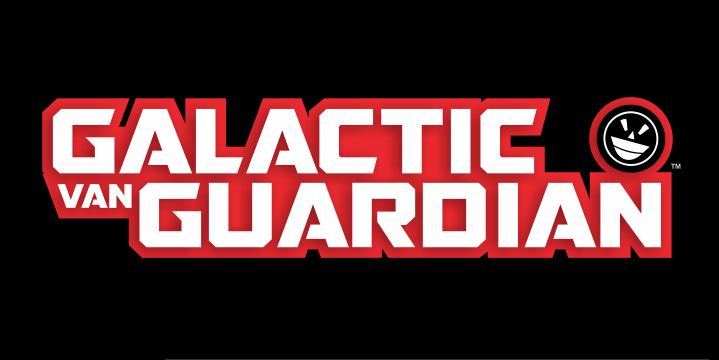
Preview and download Galactic Vanguardian Font. Created by Fontry in Techno Sci-fi styles with Free for personal use license.
CLICK HERE to buy a commercial version of GALACTIC VANGUARDIAN via secure Payhip/PayPal digital download: https://payhip.com/b/p3gL The celluloid has been minted -- digitally of course -- flora and fauna are speaking, even walking. The galaxy is a wide-open space, a collection of mysterious beings and celestial things capable of destroying entire worlds. The guardians are coming to save the day. Entering stage right is the latest Fontry offering to add its weight in an ongoing typographical battle that will span the stars, GALACTIC VANGUARDIAN NCV (non-commercial version). OpenType Feature replacements included at no extra charge. For questions about commercial use, please contact: the_fontry@yahoo.com |